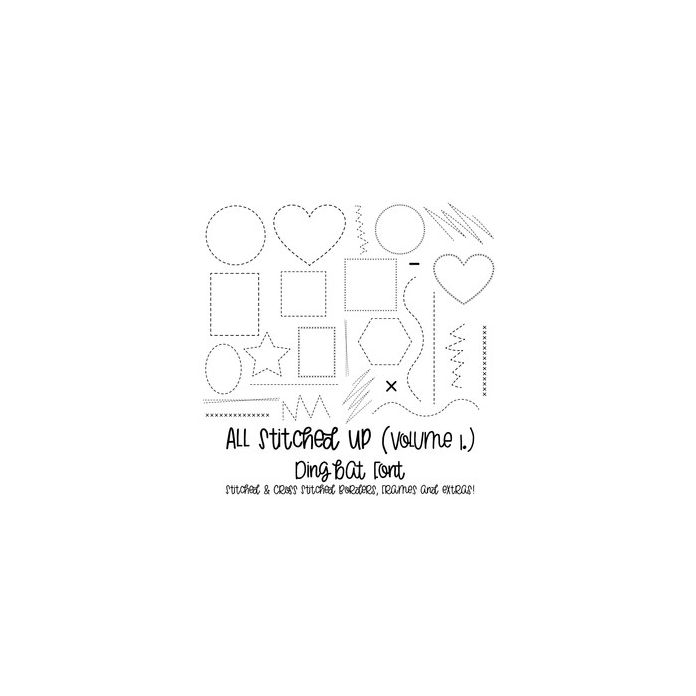
All Stitched Up (Volume 1) Dingbat Font. Featuring 26 Stitched and Cross Stitched Effect Borders, Frames and Extras including two individual stitches. All are allocated to upper and lower case letters so you can simply type and go! They are also accessible via glyphs / character map.